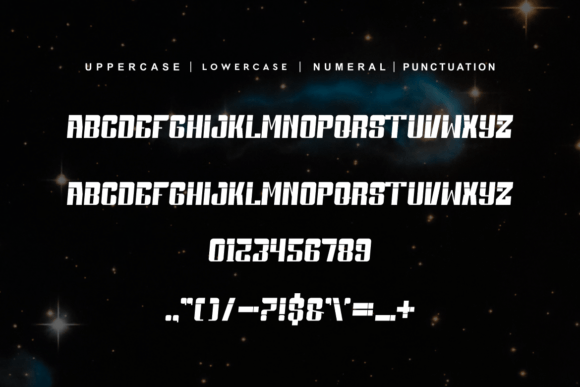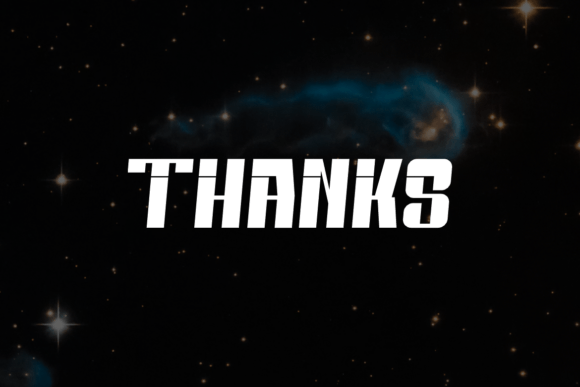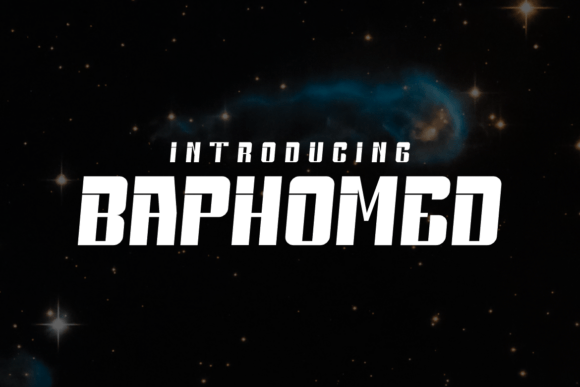
Unleash Your Creativity with Baphomed Font: The Ultimate Design Companion
In the realm of design, the right typography can make all the difference. A font that can effortlessly adapt to various design needs is a treasured find. Look no further than the Baphomed Font, an exceptional typeface that can elevate your designs to new heights. Whether you’re working on labels, movie titles, gig posters, album covers, or bold logos, this font is sure to impress.
A Font that Shines in Every Context
What sets Baphomed Font apart is its unique ability to encapsulate the spirit of each context it is applied to. Its character is versatile and dynamic, allowing you to translate your artistic vision smoothly. This font is designed to be a chameleon, blending seamlessly into various design environments while maintaining its distinctive appeal.
With Baphomed Font, the possibilities are endless. Imagine creating a mesmerizing movie scene with a title that grabs the audience’s attention. Envision a dynamic logo that speaks volumes about your brand’s personality. This font offers a finesse that accentuates and amplifies the appeal of your designs, making it an indispensable tool for designers and crafters.
Key Features of Baphomed Font
- Versatility: Baphomed Font is designed to cater to a wide range of design needs, from labels and movie titles to gig posters, album covers, and bold logos.
- Unique Character: This font has a distinctive personality that shines in every context, allowing you to convey your artistic vision effectively.
- Impactful: Baphomed Font is designed to make a statement, adding a touch of sophistication and elegance to your designs.
- Adaptability: This font can blend seamlessly into various design environments, making it an excellent choice for designers who want to push the boundaries of creativity.
Why Choose Baphomed Font?
In a world where design trends are constantly evolving, having a font that can keep up is crucial. Baphomed Font stands out as a designer’s true ally in crafting distinctive environments. Its remarkable versatility, unique character, and impactful presence make it an excellent addition to any designer’s toolkit.
Tips for Using Baphomed Font
To get the most out of Baphomed Font, here are some tips to keep in mind:
- Experiment with Different Sizes: Baphomed Font looks great in various sizes, from small labels to large movie titles.
- Play with Colors: This font comes alive with different colors, so don’t be afraid to experiment and find the perfect hue for your design.
- Mix and Match: Baphomed Font can be paired with other fonts to create a unique look that reflects your design style.
In conclusion, Baphomed Font is an exceptional typeface that can elevate your designs to new heights. Its versatility, unique character, and impactful presence make it an excellent choice for designers and crafters who want to create distinctive environments. Whether you’re working on a movie title, gig poster, album cover, or bold logo, this font is sure to impress. So why wait? Unleash your creativity with Baphomed Font and take your designs to the next level.